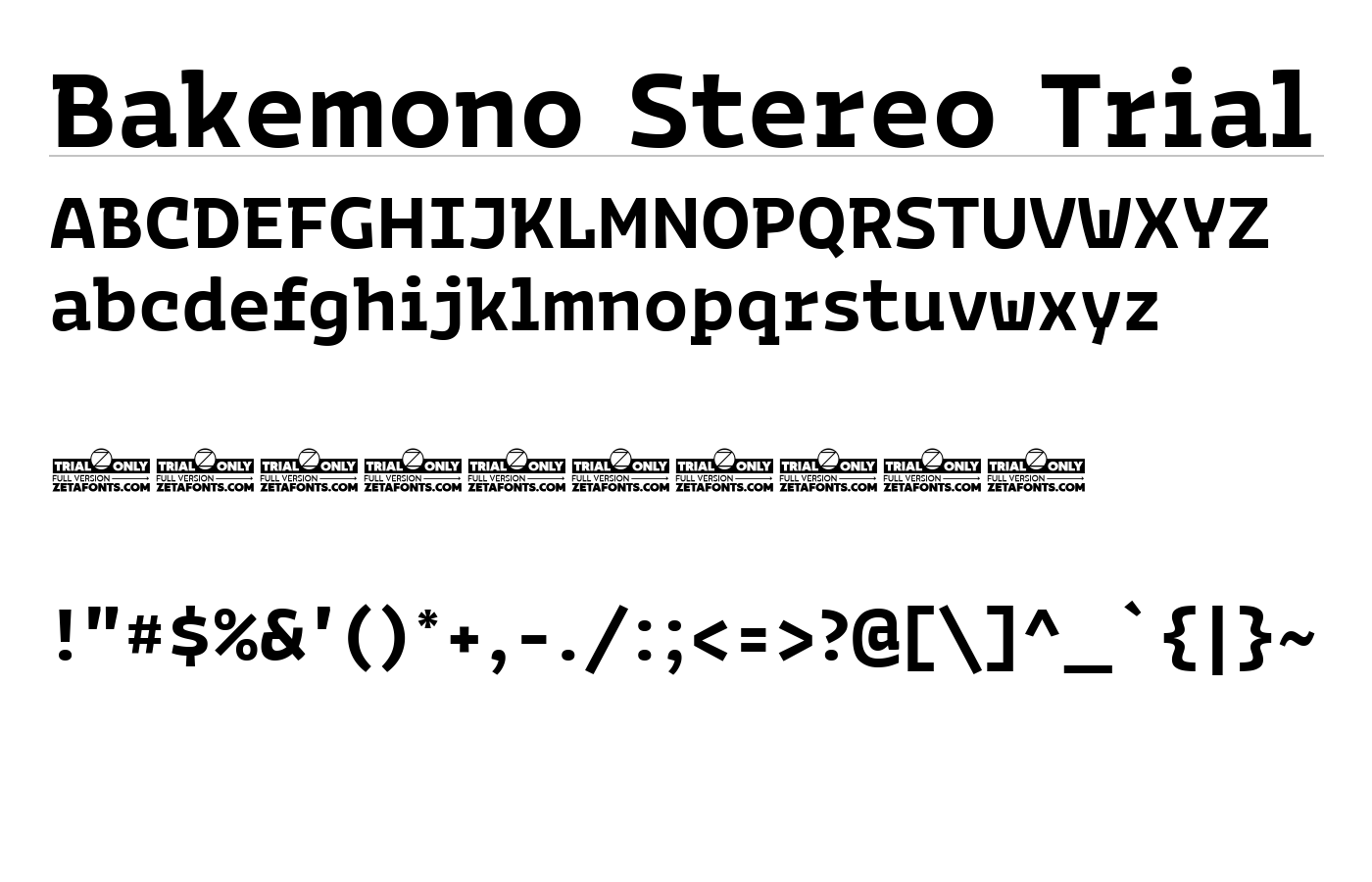
Bakemono Stereo Trial is a bold slab serif font with a strong, playful character, featuring thick, bracketed serifs and a high x-height that enhances readability. Its quirky letterforms, such as the unique curled tail of the "Q" and the distinct ampersand, bring a lively, retro feel ideal for eye-catching headlines, logos, and branding with a fun yet authoritative vibe. This font works well in creative and informal contexts where a bold statement is needed without sacrificing clarity.
Bakemono Stereo Trial Font
About Bakemono Stereo Trial Font
| Font family | Bakemono Stereo Trial Font |
| Designer | Francesco Canovaro |